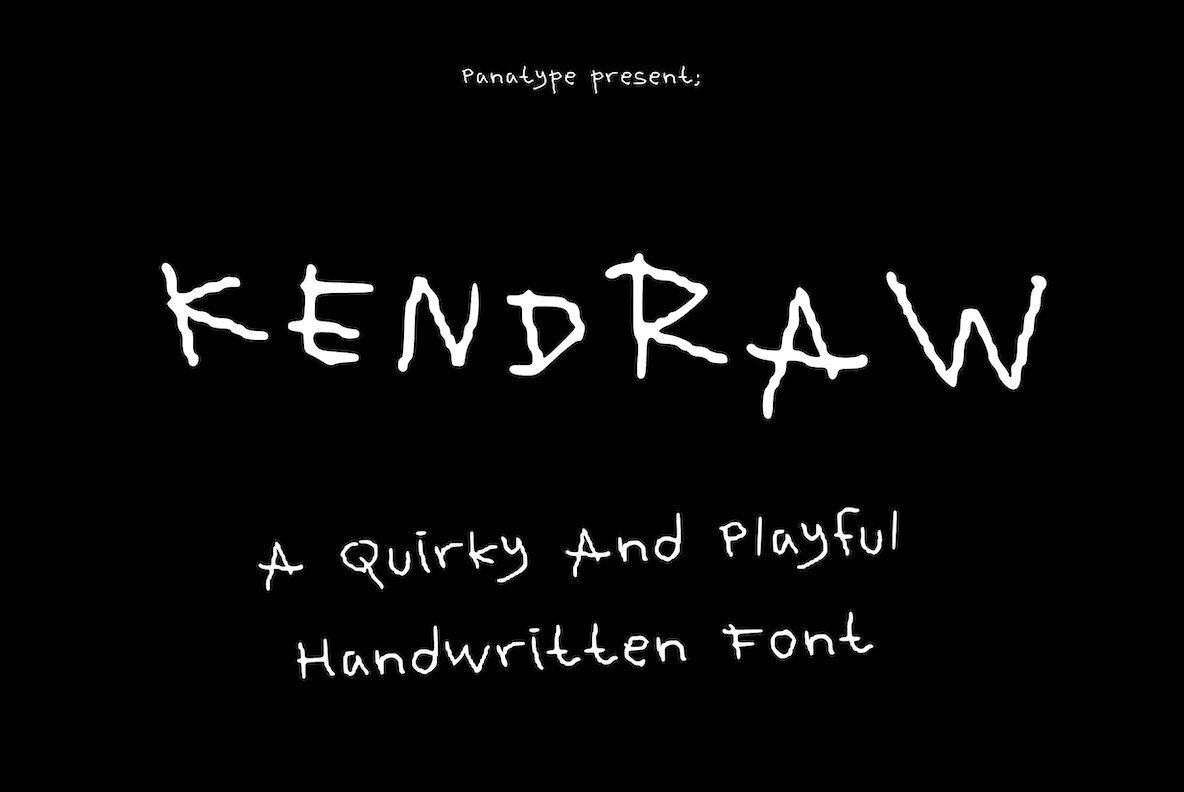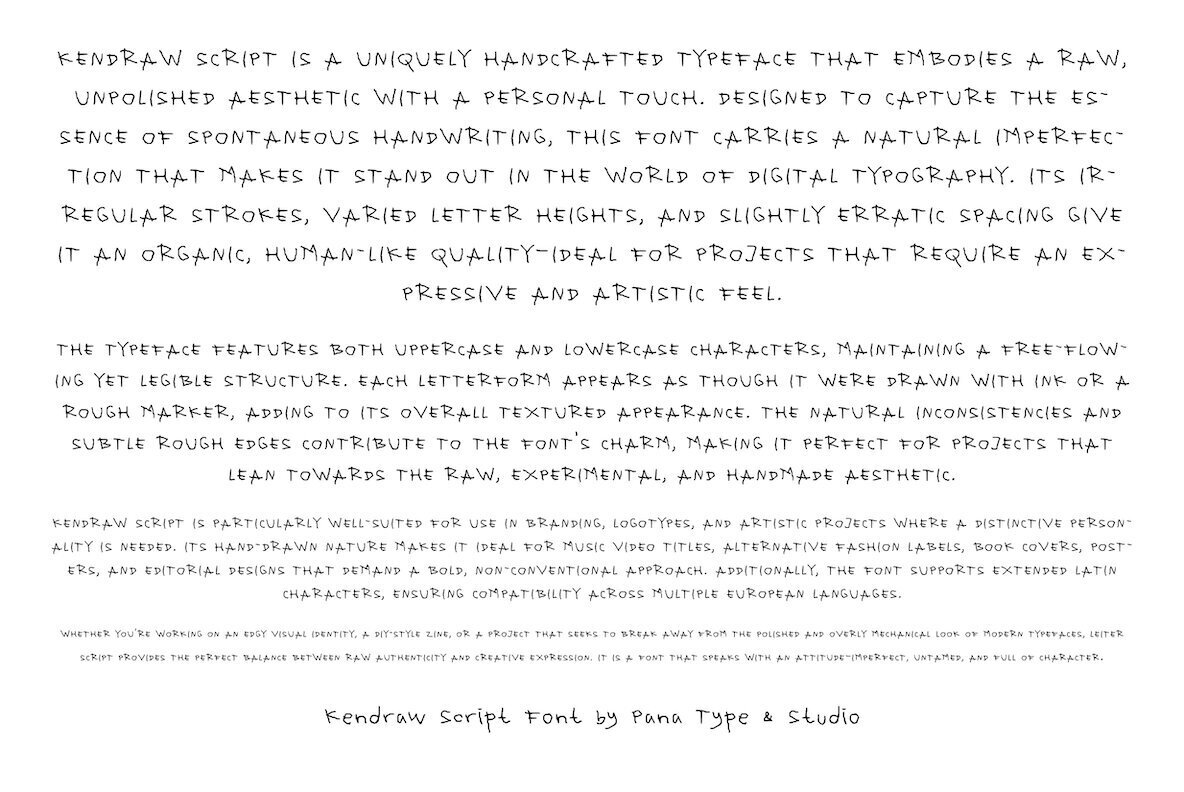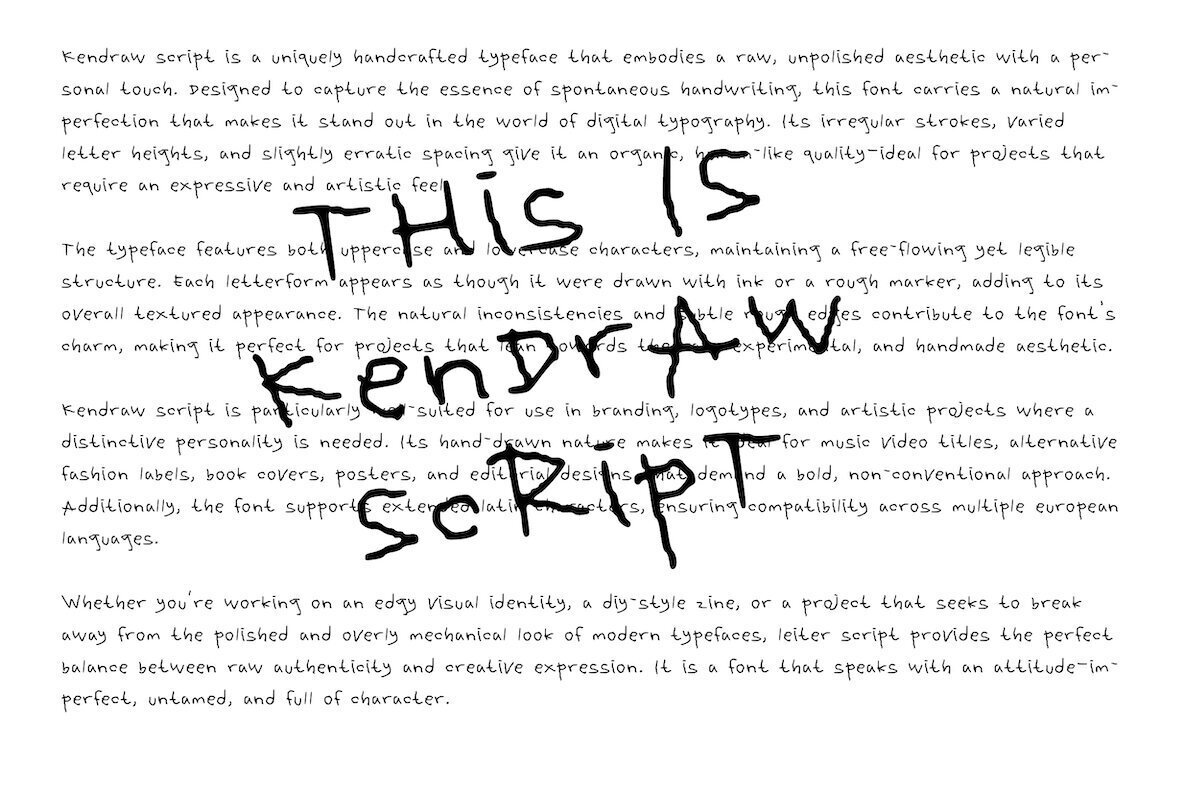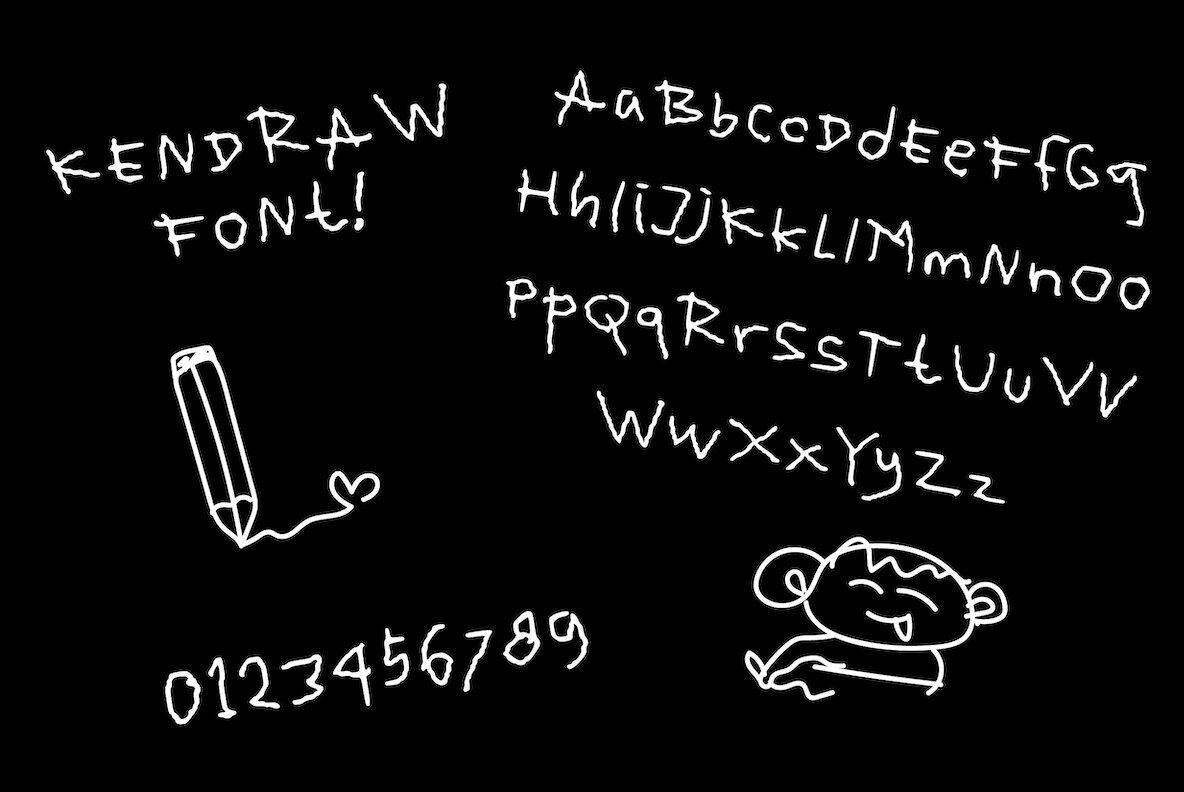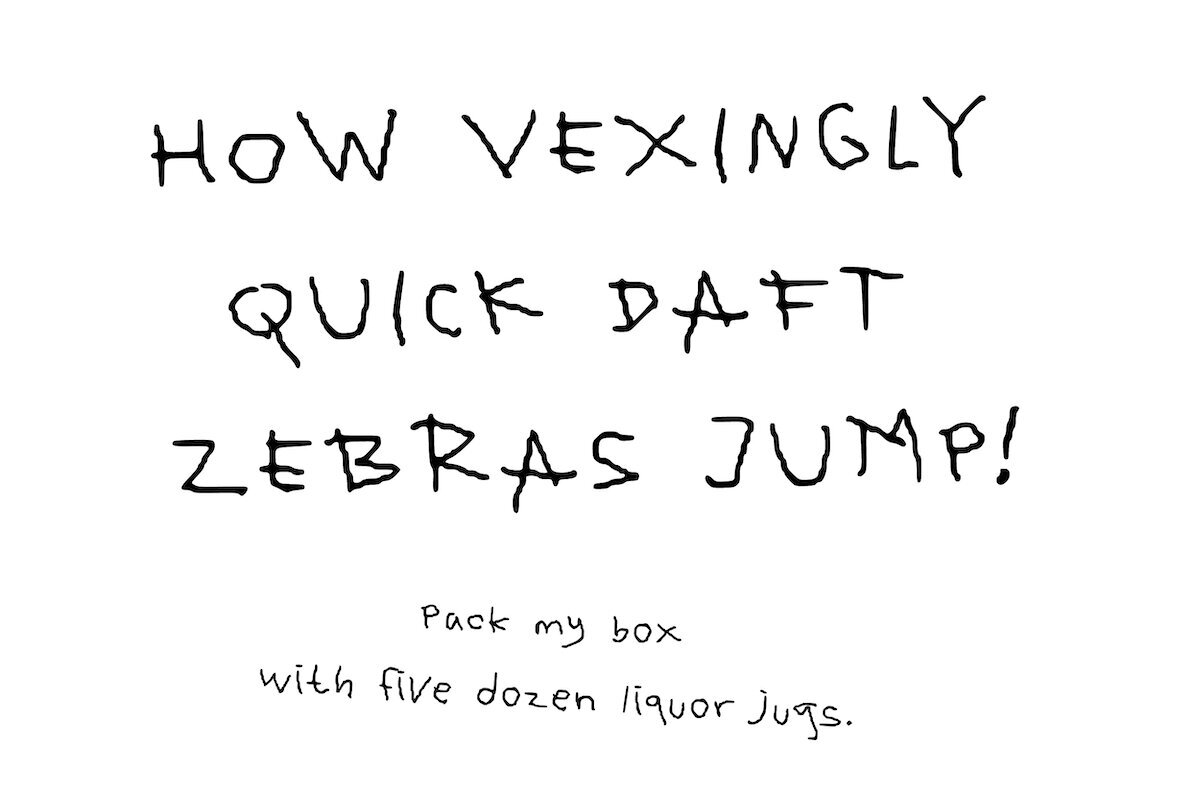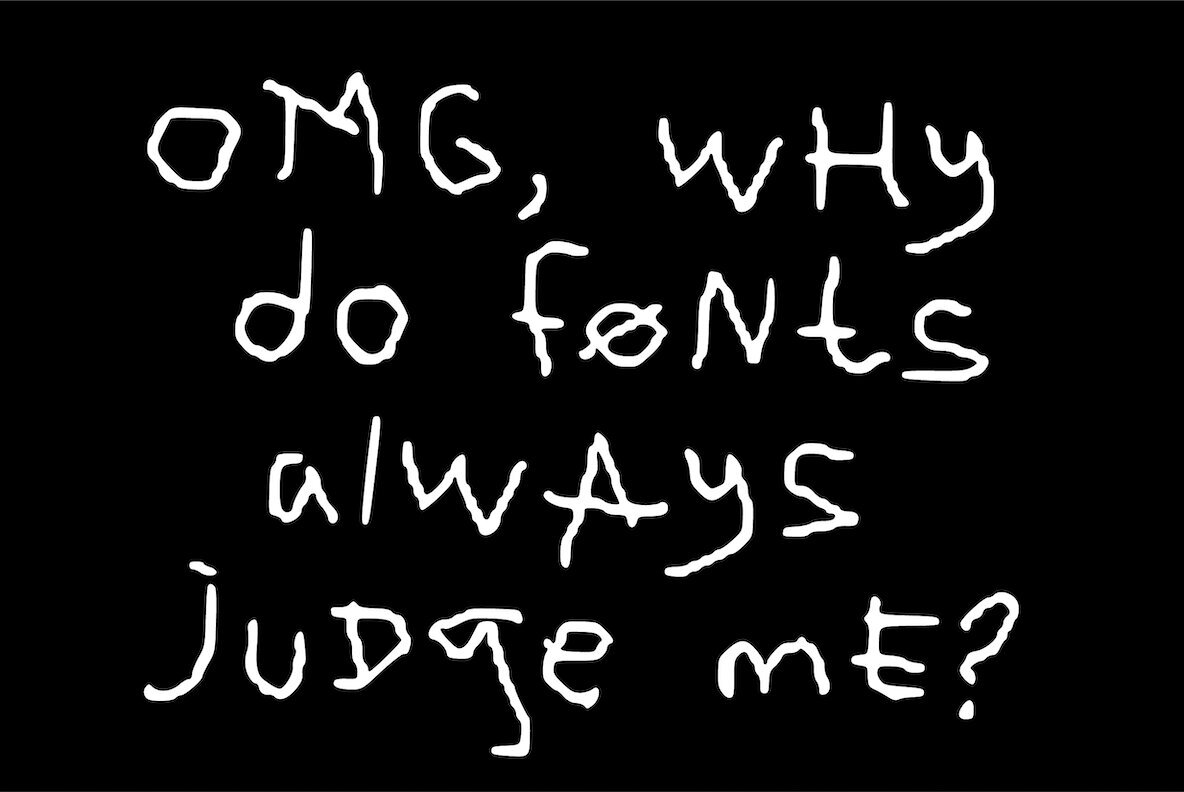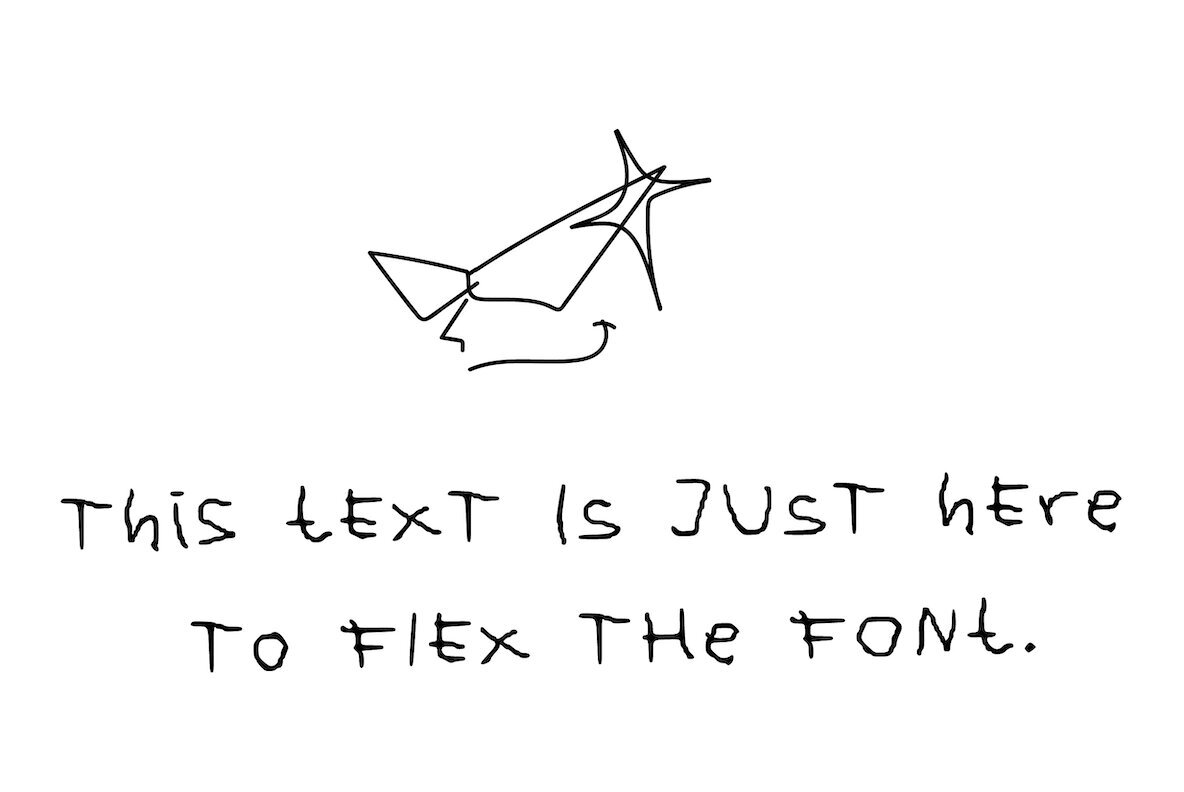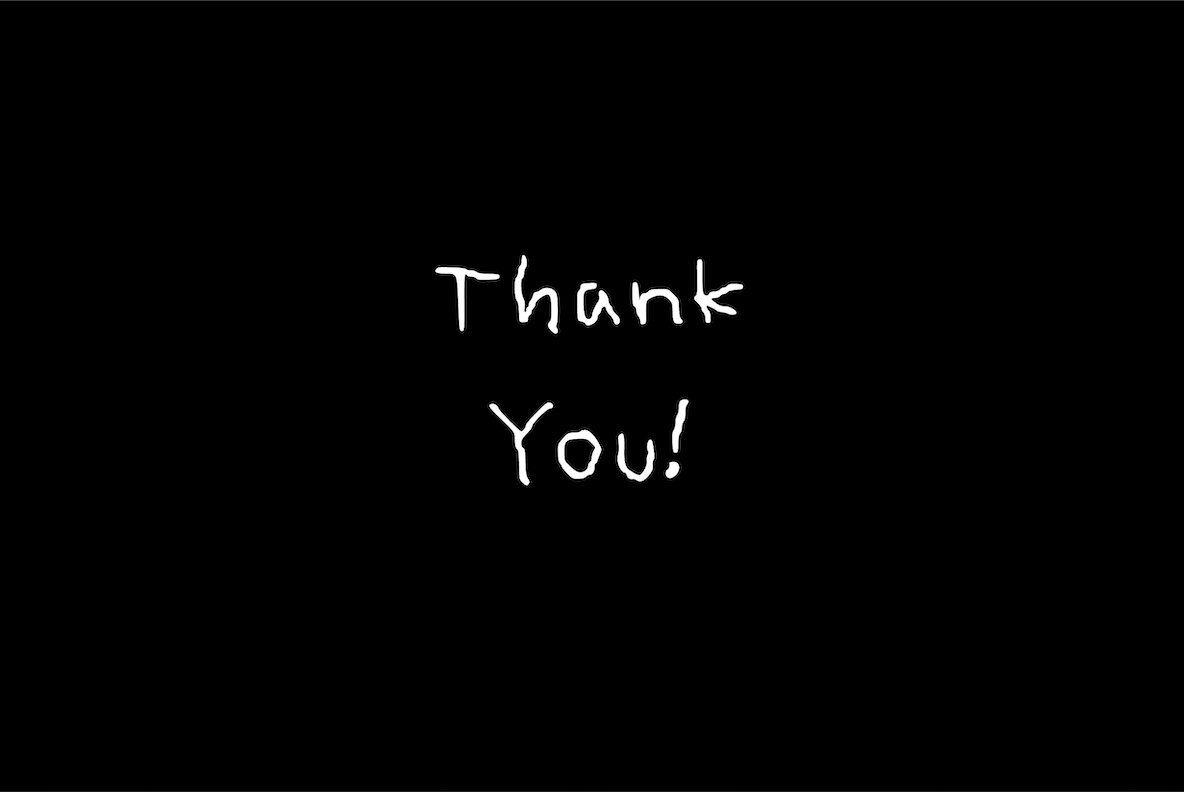
Kendraw Font
Kendraw Irregular
The Kendraw Font brings an organic and artistic flair to your creative projects. Known for its rough strokes and irregular letterforms, it encapsulates the beauty of spontaneous handwriting. Whether crafting creative branding, hand-drawn logos, or experimental typography, this font is your ideal choice. Embrace imperfection and authenticity with Kendraw Font, and watch your creative ideas come to life.Kendraw Font: A Raw and Expressive Handwritten Typeface
Why Choose Kendraw Font?
Perfect for: